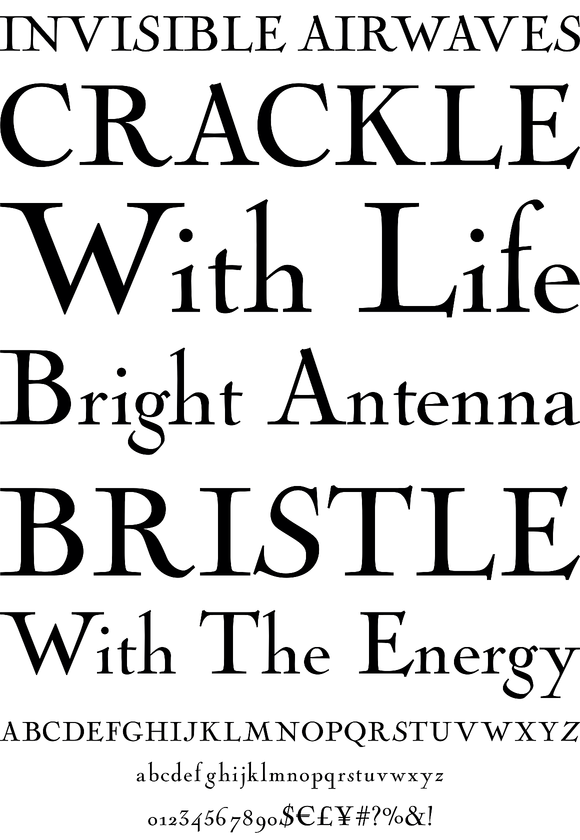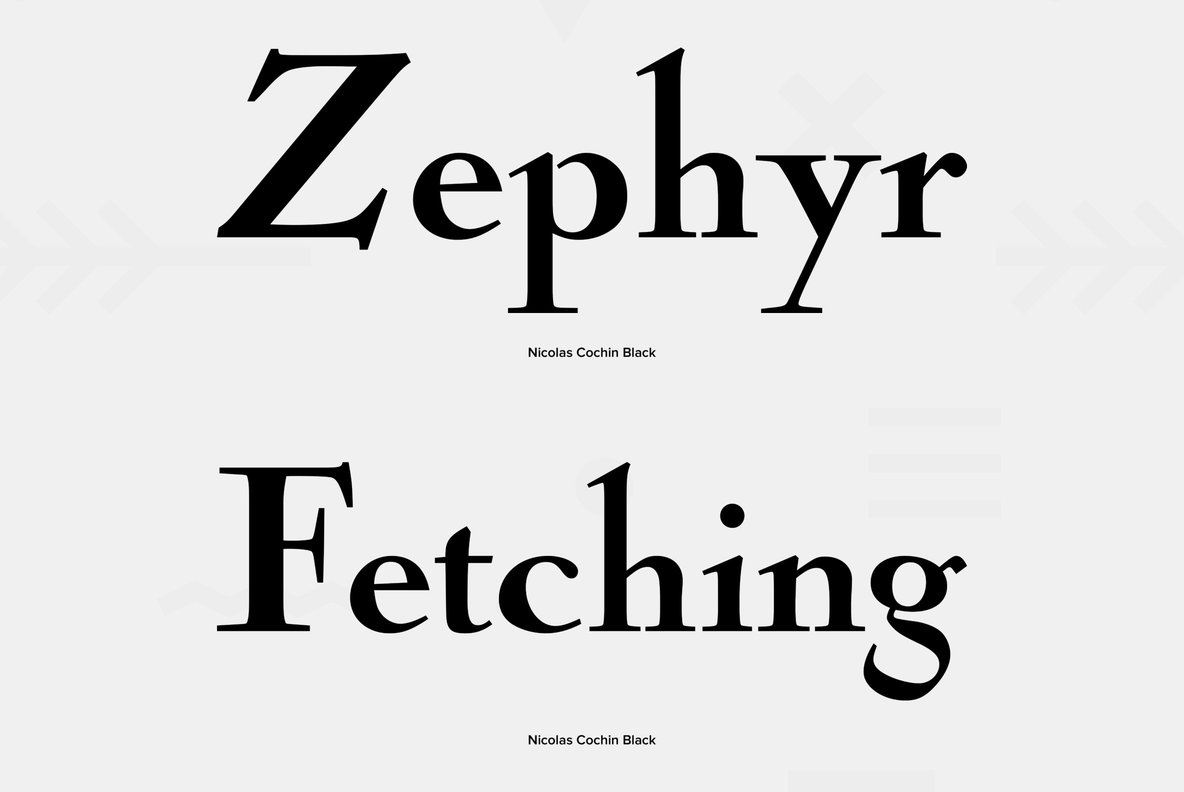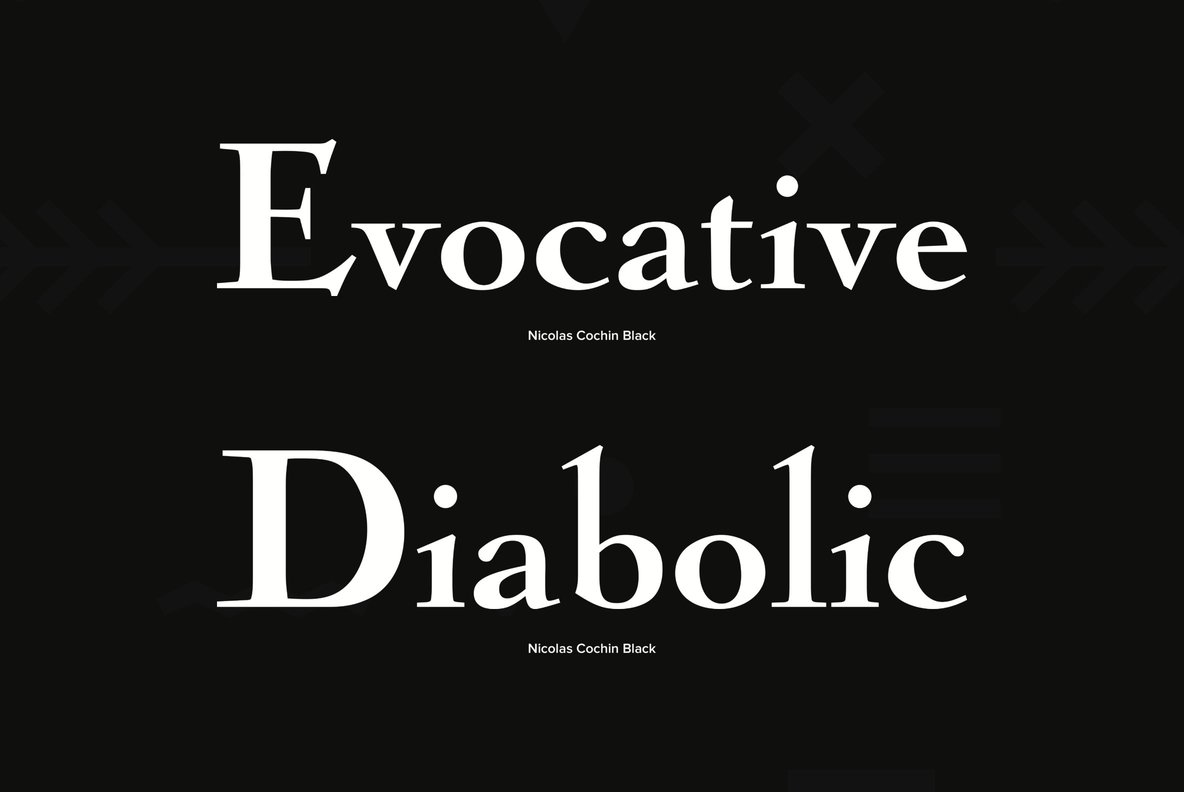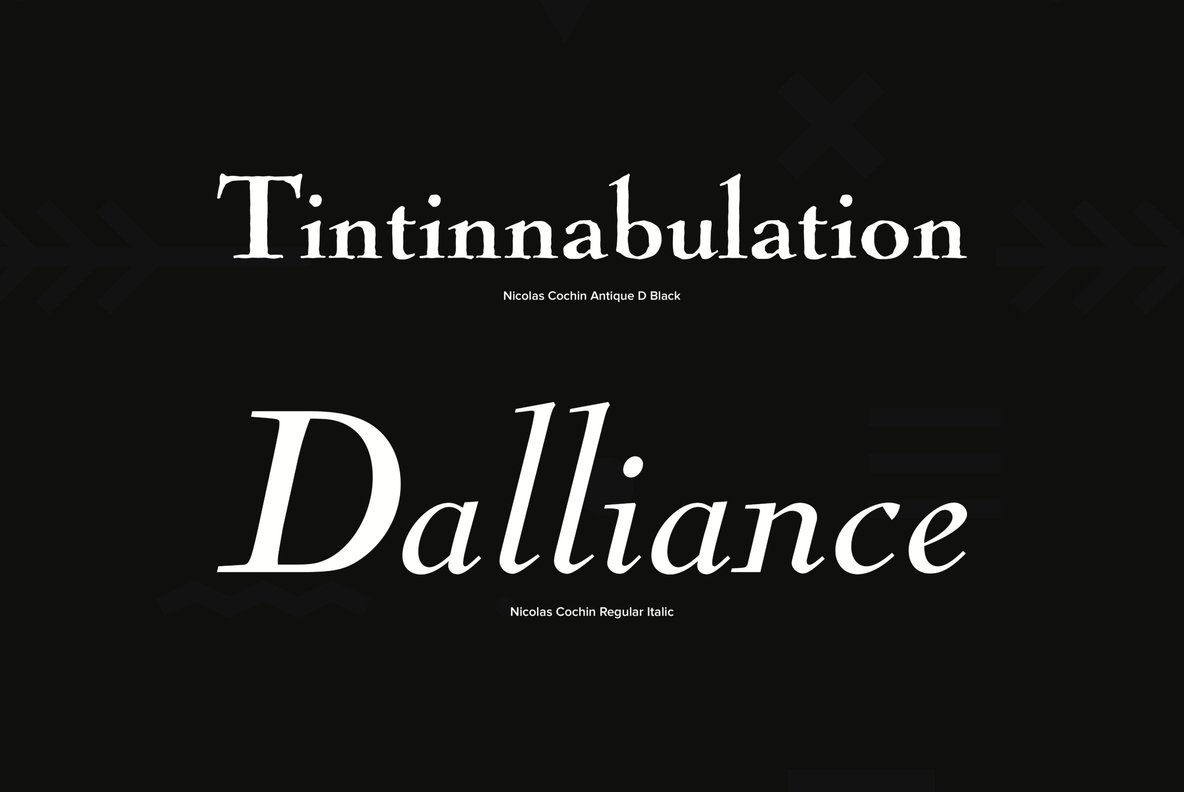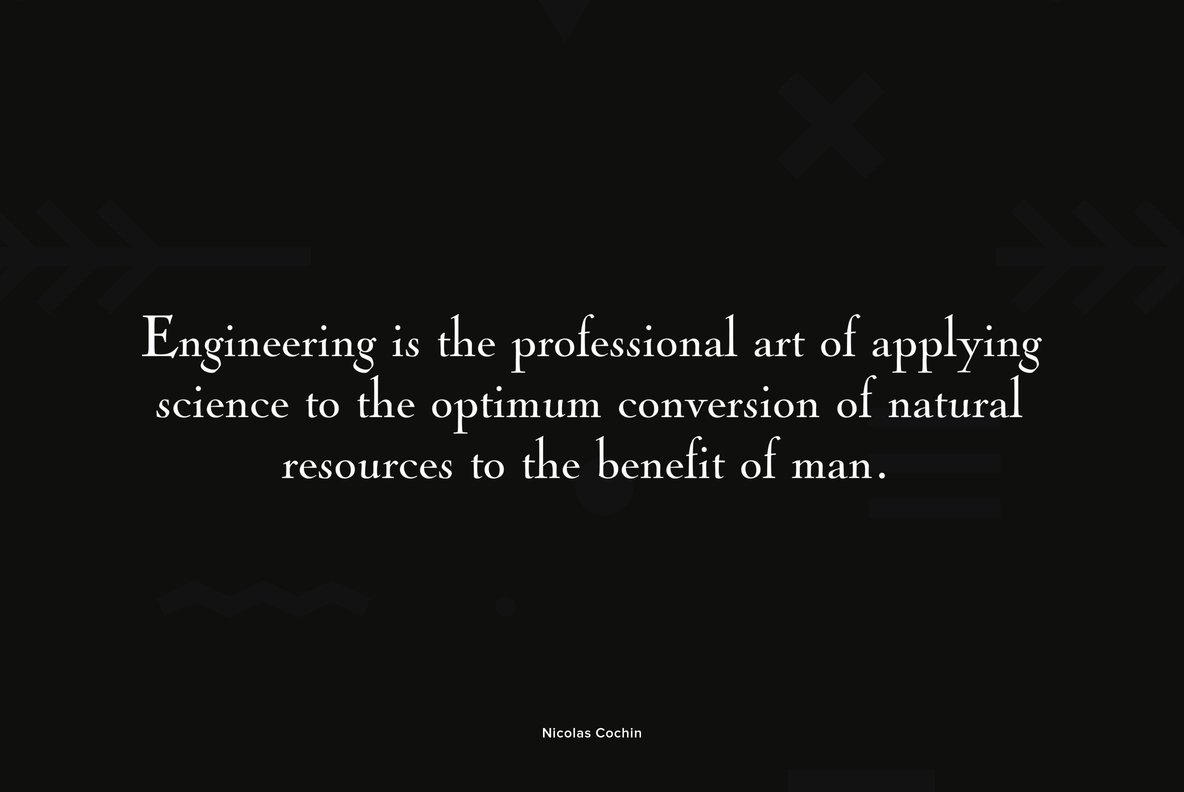
Designed by Georges Peignot in 1912, Nicolas Cochin is a classic serif release by URW. Contains language support for West, East, Turkish, Baltic, and Romanian.